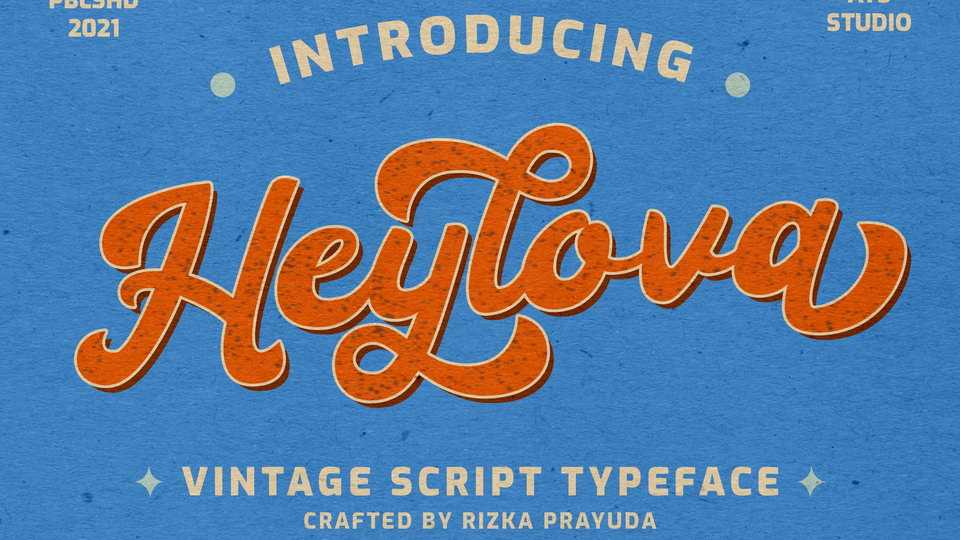
Download Heylova font, a vintage script typeface with a groovy look and brush effect. Heylova perfectly fits for your logo designs, music projects and social media posts, event poster, brand imagery, product packaging, handwritten quotes, merchandise, etc.
Designer: Atasi Studio